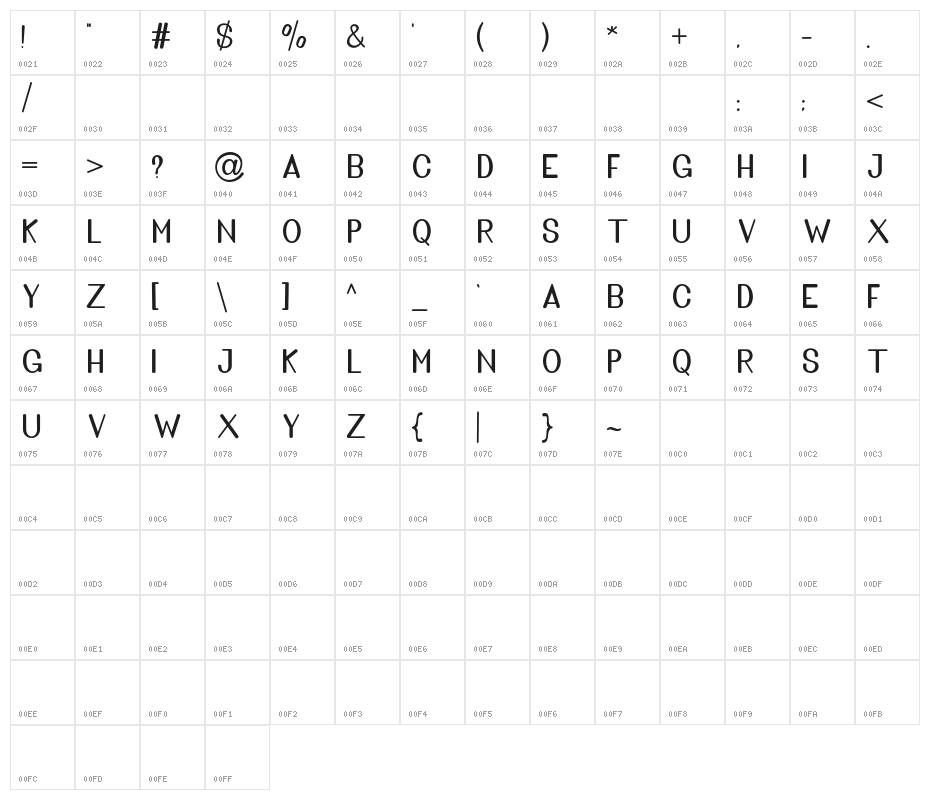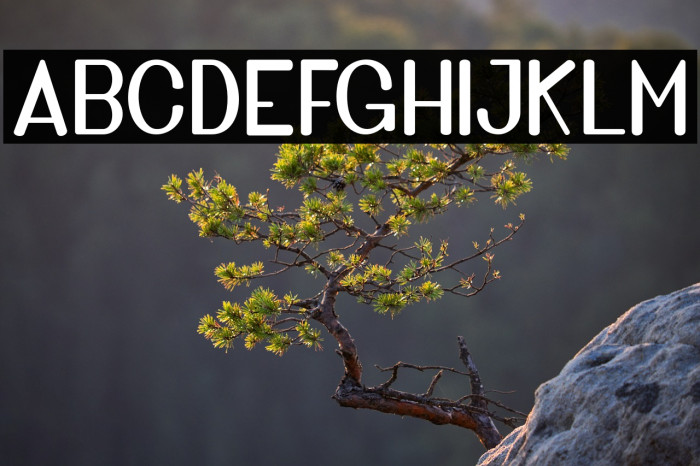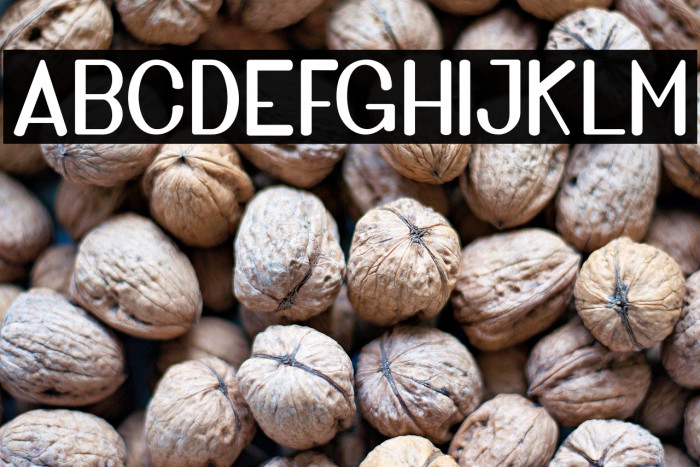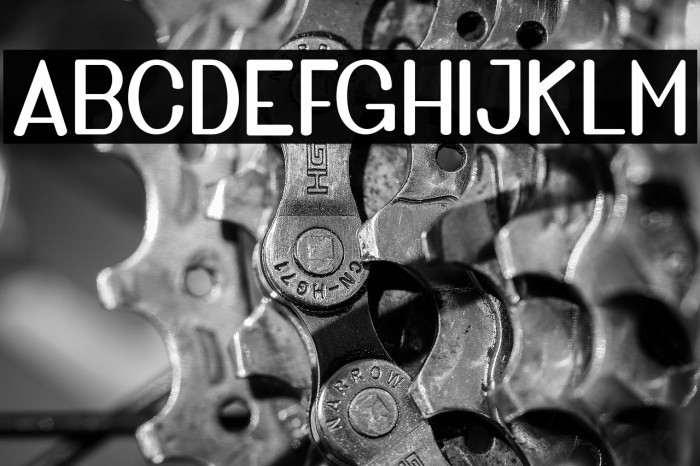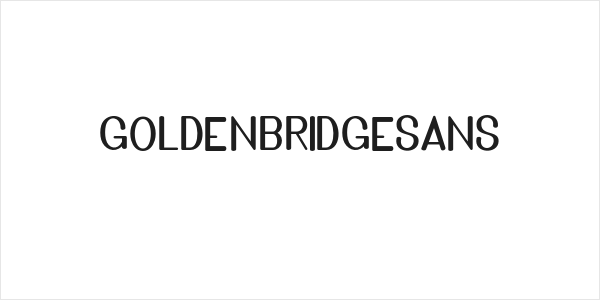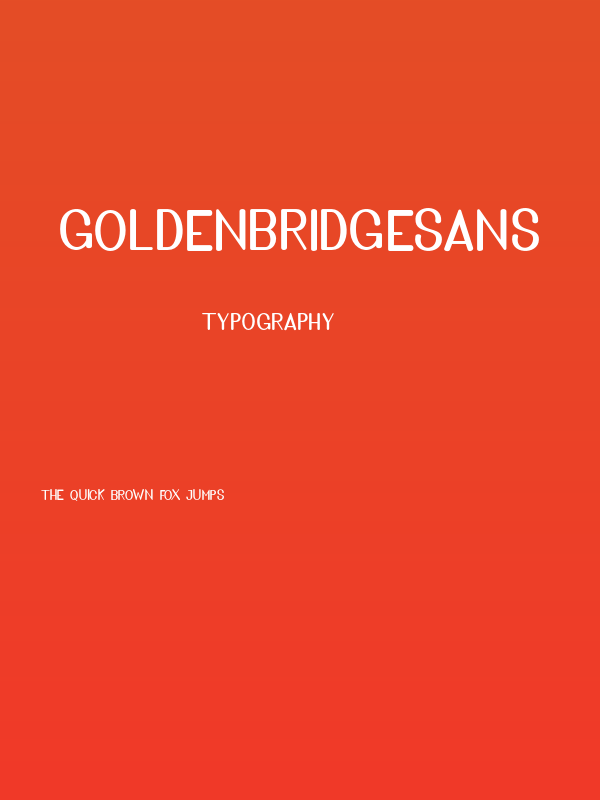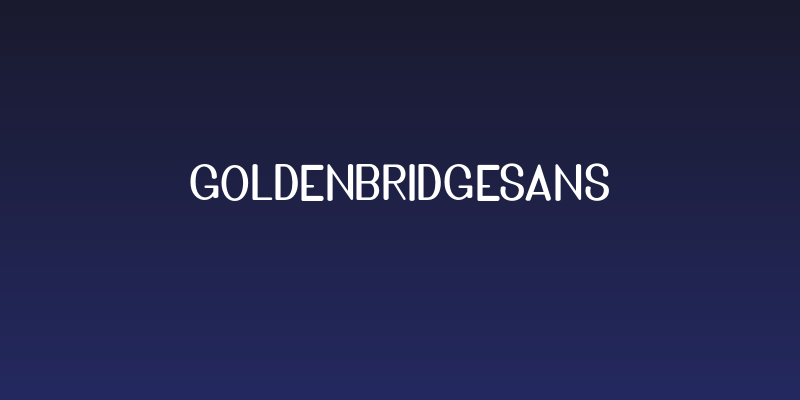
GoldenBridgeSans Font
This font features a clean and modern sans-serif design, characterized by its uniform stroke width and geometric shapes. The uppercase letters are bold and prominent, providing a strong visual impact. The lowercase letters maintain a consistent style, ensuring readability and a cohesive appearance. The numerals are clear and straightforward, matching the overall aesthetic. Special characters are well-defined, adding versatility to the font. Its simplicity and clarity make it suitable for a wide range of applications, from digital interfaces to print media.